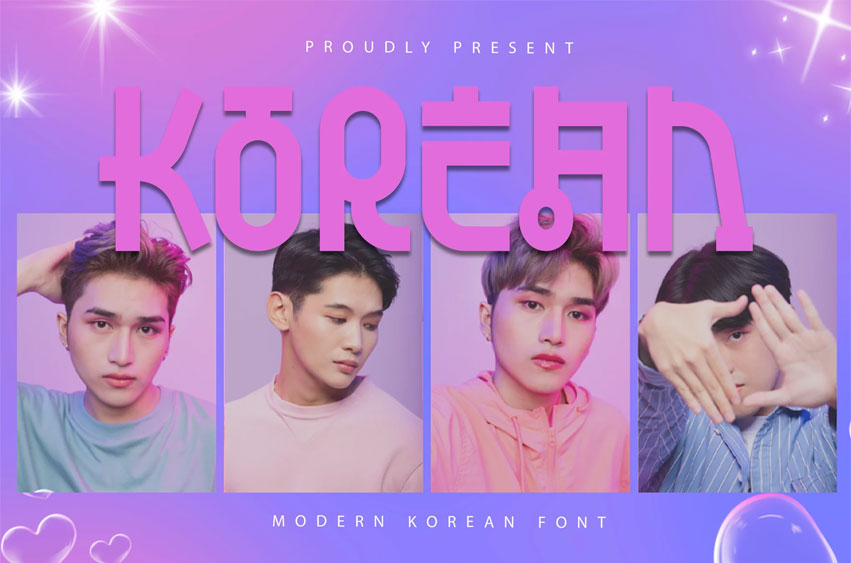
Korean Font is a modern Korean font that seamlessly blends the rich traditions of Korean script with a sleek, contemporary design. Perfect for graphic designers, typographers, and creatives looking to infuse their projects with the elegance and cultural depth of Korean characters, this font offers a unique and visually appealing typeface.
Ideal for branding, posters, packaging, websites, and apparel, Korean’s elegant and well-balanced characters provide a sophisticated and harmonious aesthetic. Each letter is meticulously crafted to ensure readability and artistic integrity, making your designs both captivating and modern.
The “Korean” font includes a complete set of Hangul characters, along with uppercase and lowercase Latin letters, numbers, punctuation marks, and special characters. This comprehensive set ensures seamless integration into various design projects, from cultural branding to stylish promotional materials.
Celebrate the beauty of Korean script with Korean, the modern Korean font that harmonizes tradition and modernity.